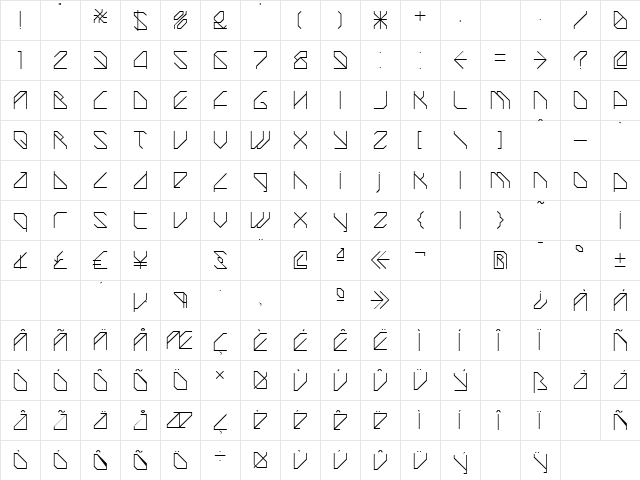
TechstepThin Regular
Design Context for TechstepThin Typeface
TechstepThin has a distinctly futuristic character, with geometric precision and clean angles that feel at home in technology, gaming, and sci-fi contexts. The delicate stroke weight brings airiness and refinement to layouts.